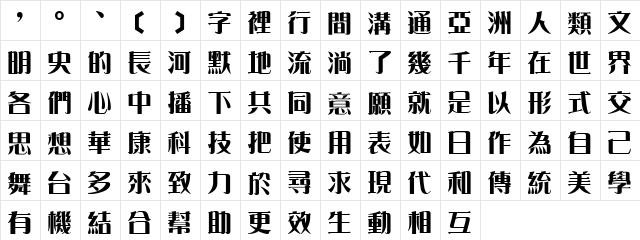
DFLiFancySong1B Regular Font Preview
DFLiFancySong1B Regular
DFLiFancySong1B Regular Font Details
Design Context for DFLiFancySong1B Typeface
DFLiFancySong1B takes a measured approach to typography — its balanced proportions and neutral character make it a reliable workhorse for both digital and print work.